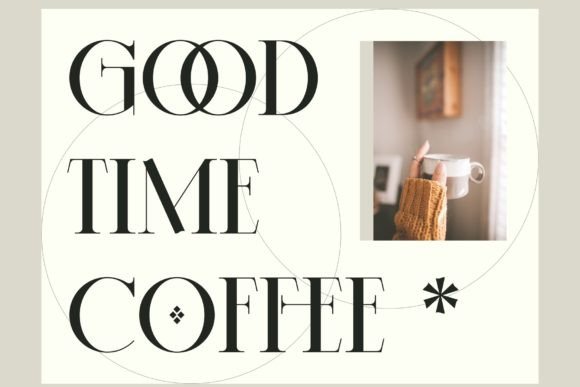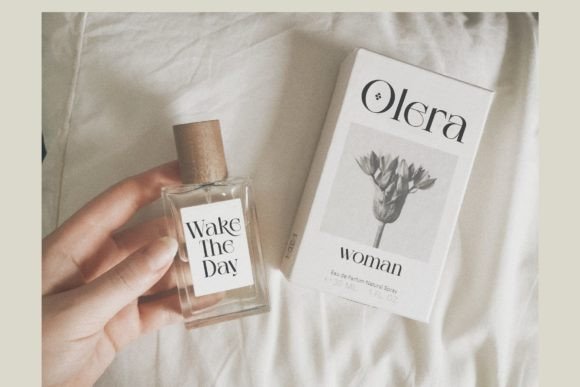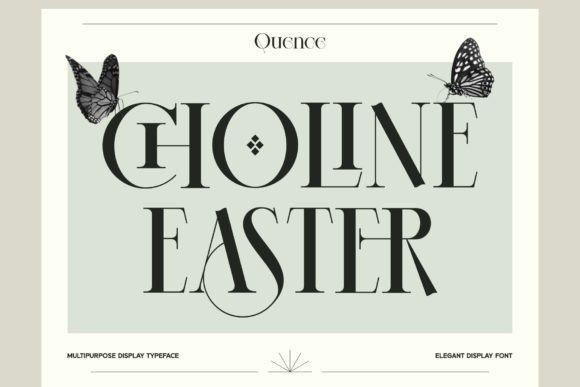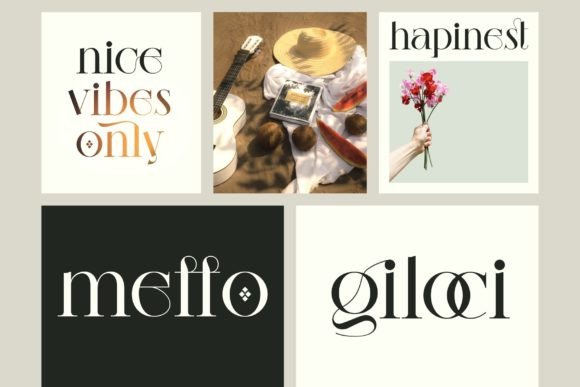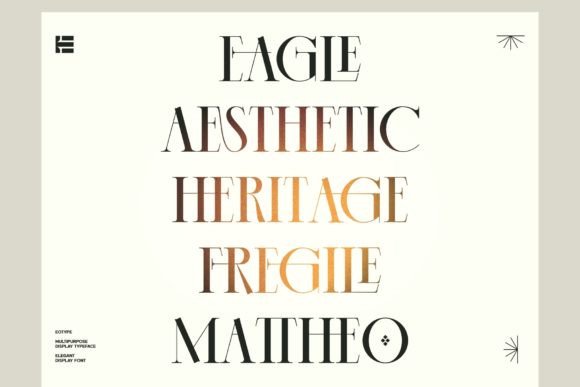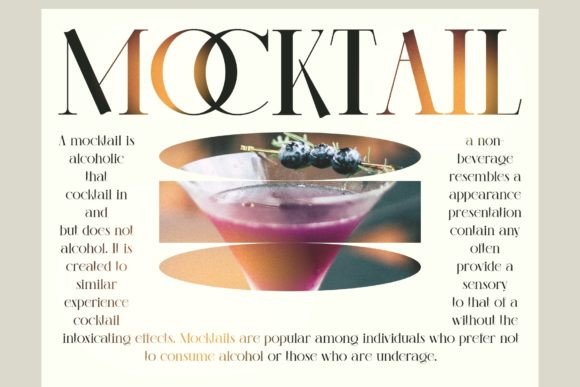
Introduction to Quence Font
Quence is serif decorative display font has a beautiful and aesthetic look.
The Quence font provides a collection of glyphs with unique shapes This font is suitable for modern vintage retro designs.
Key Features of Quence Font
Why Choose Quence Font?